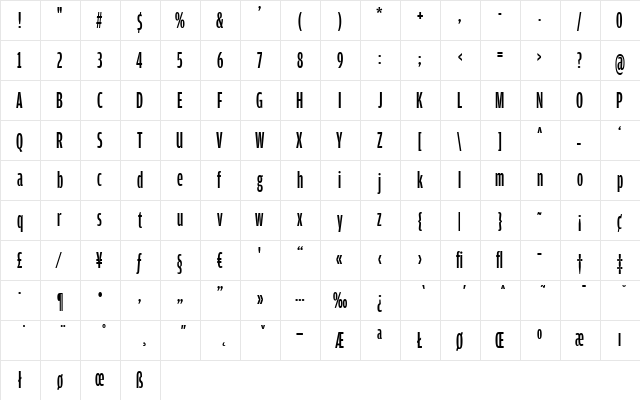
AmplitudeExtraComp-Medium Regular
| Foundry | The Font Bureau, Inc |
| Designer | Christian Schwartz |
AmplitudeExtraComp-Medium offers clean, dependable letterforms without strong stylistic allegiance, making it a practical choice for designers who need flexibility.